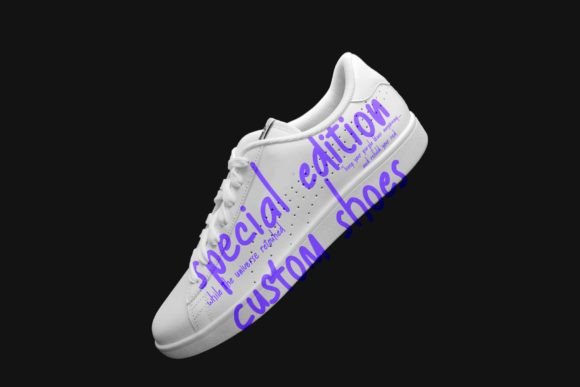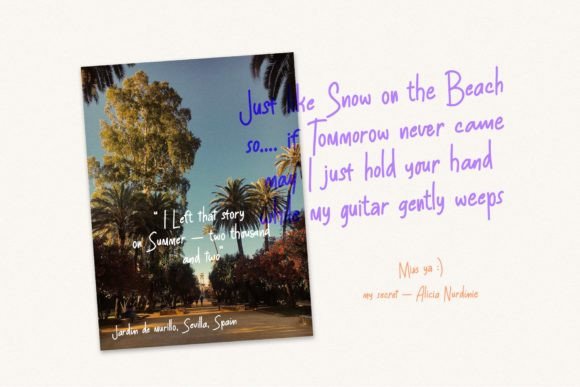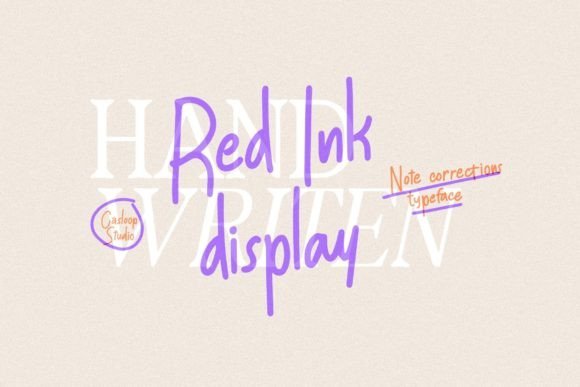
Introduction to Red Ink Font
Red Ink is a fun and casual handwritten display font that reminds you of school notes.
Whether you’re using it for crafts, digital design, presentations, or making greeting cards, this font has the potential to become your favorite go-to font, no matter the occasion This font is PUA encoded which means you can access all the glyphs and ligatures with ease.
Key Features of Red Ink Font
Why Choose Red Ink Font?
Red Ink Font offers exceptional quality and versatility, making it a valuable addition to your design toolkit. Whether you’re creating for personal projects or commercial use, Red Ink Font delivers professional results.